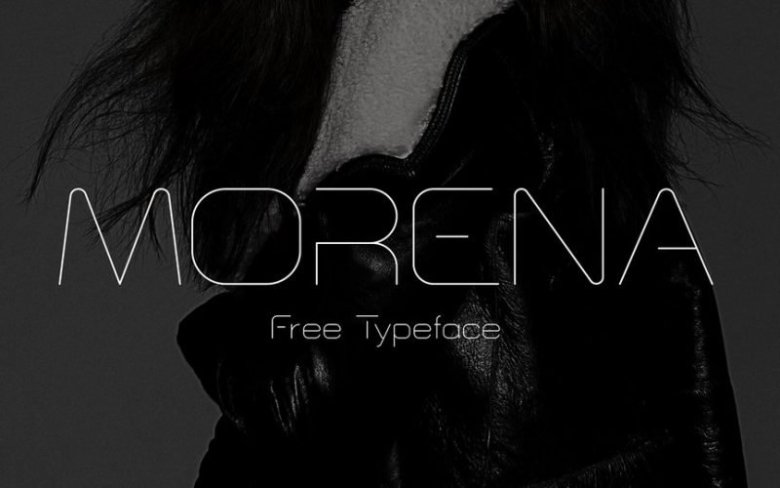
Morena Typeface
Introducing Morena Typeface! Thank you for looking this font. This a simple, clean and elegant sans serif, combines with updated, clean letterforms. Something flexible enough we could use it on anything while still retaining enough character to be instantly recognizable.